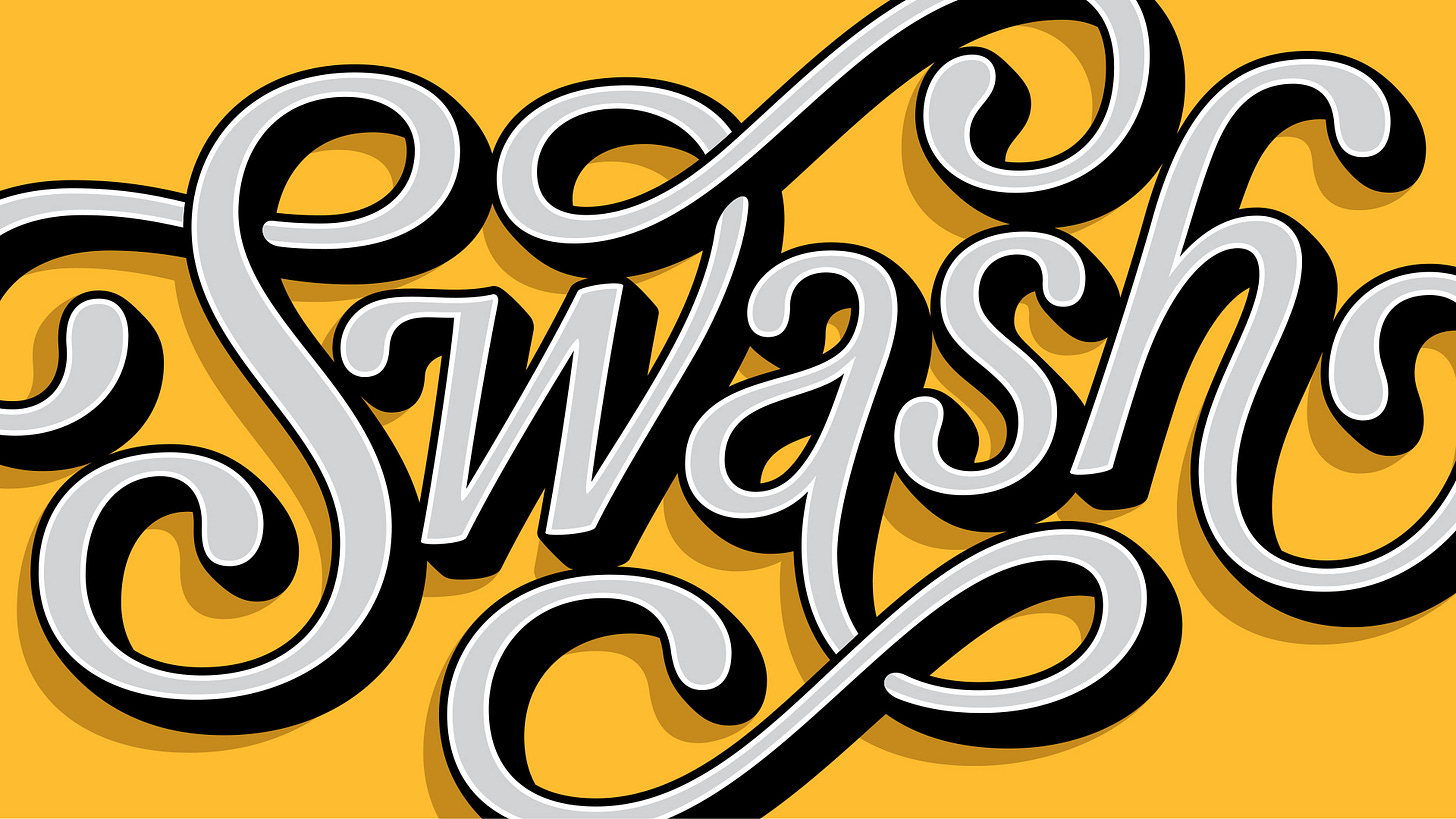
During this engaging in-depth class, you’ll learn how to energize foundational sans and serif letterforms with head-turning decorative swashes. I’ll personally show you strategies for choosing letter styles, selecting departure points for embellishments, and shaping ornamental elements so you can compose your own spectacular swash lettering layouts.